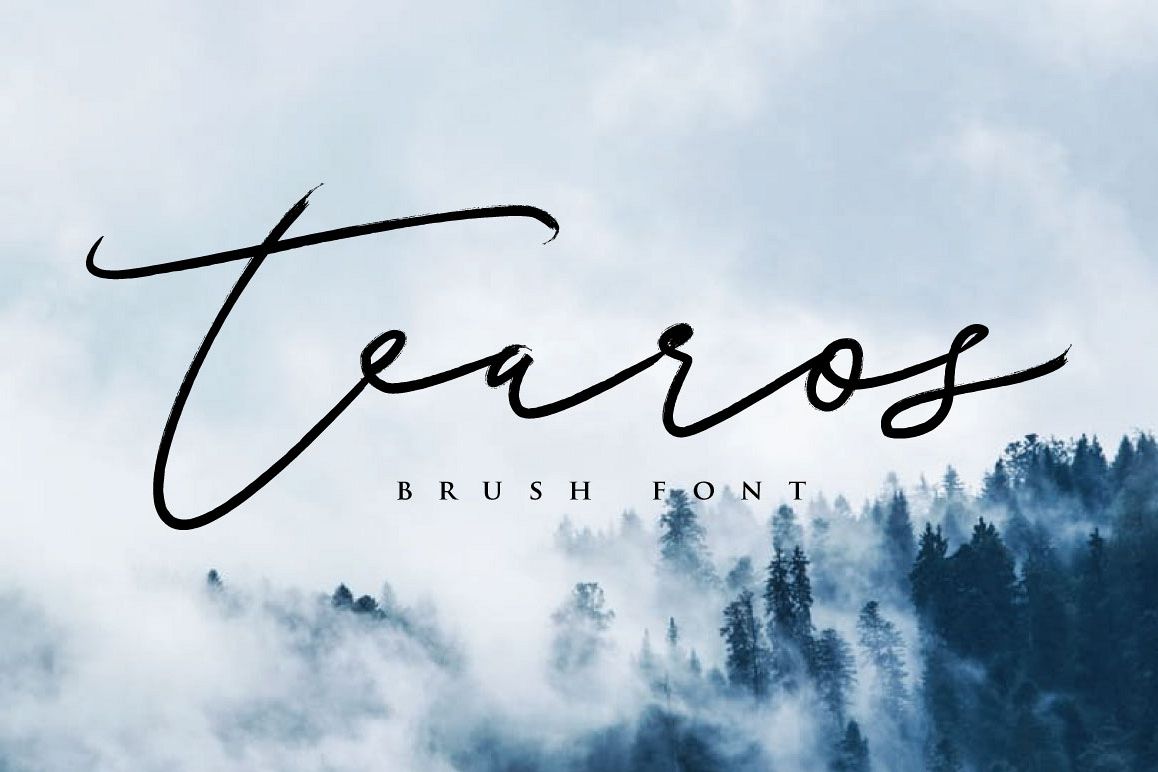
Tearos Typeface
Tearos
Tearos is script brush font
which unique and fast writes imperfect hand
written look & just the right amount of texture. Balancing between scrawl
and rush style to
help you create the look of strange custom hand-lettering. Tearos is just what
you've been looking for!
Use
Tearos on all of your projects to give
it an imperfect hand brushed font.  In
particular would look great on
, branding
projects, logos, product packaging, posters, invitations, greeting cards,
titles, blogs, everything that includes personal charm and you name it. ;)
Tearos brush script comes with upper
and lowercase characters, punctuation glyphs, numerals, and a TTF of web font.